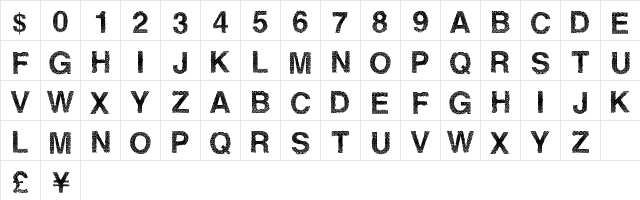
SteamRose Regular
Foundry: Xerographer Fonts
Designer: Xerographer Fonts Max Infeld
Design Context for SteamRose
SteamRose is a composed and adaptable typeface that performs quietly and consistently across a wide range of design contexts.